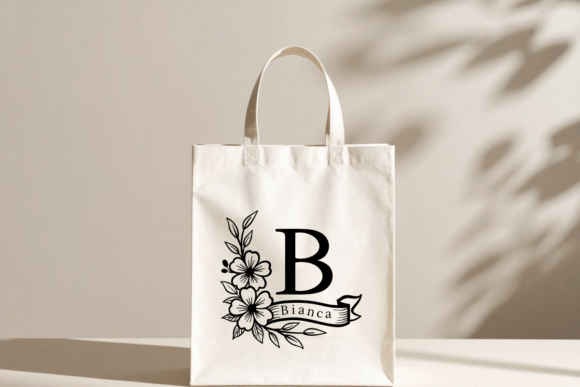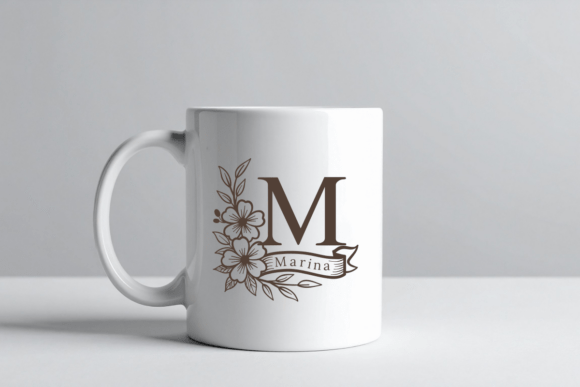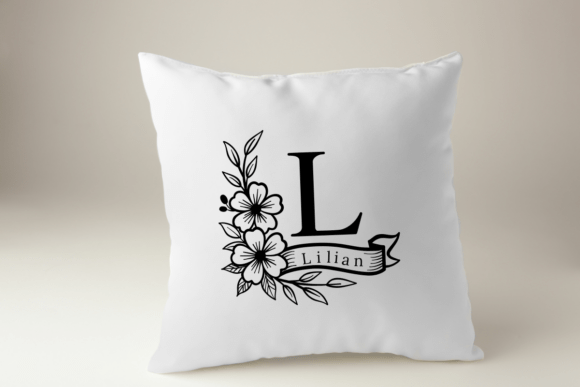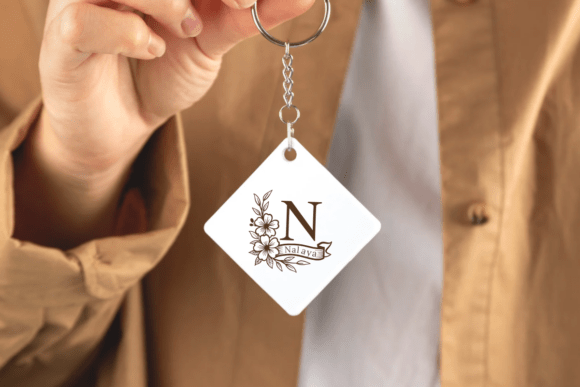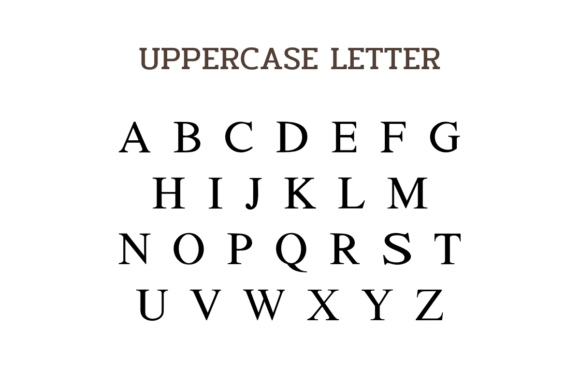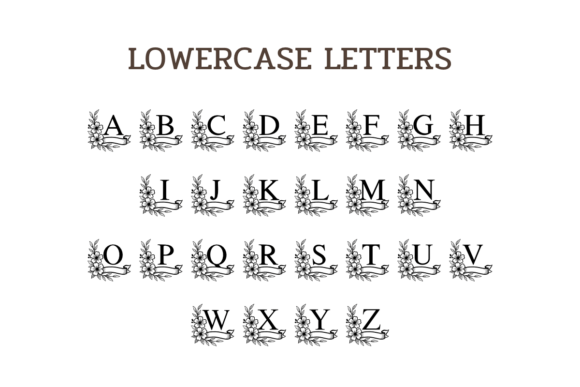
Elevate Your Designs with the Elegance of Floral Monogram Font
Are you a designer, crafter, or DIY enthusiast looking to add a touch of elegance and sophistication to your projects? Look no further than the beautiful Floral Monogram Font. This decorative font is perfect for taking your designs to the next level, whether you’re creating notes, diaries, greeting cards, or a wide range of other projects.
What is Floral Monogram Font?
Floral Monogram Font is a stunning decorative font that features intricate floral designs and monogrammed letters. Its unique and eye-catching style makes it perfect for a variety of creative projects, from traditional paper crafting to digital designs.
Uses for Floral Monogram Font
One of the best things about Floral Monogram Font is its versatility. You can use it for:
- Taking notes: Add a touch of elegance to your journaling or note-taking with this beautiful font.
- Writing a diary: Make your diary entries feel like a treasured keepsake with the Floral Monogram Font.
- Creating greeting cards: Impress your friends and loved ones with beautifully designed greeting cards featuring this stunning font.
- Designing banners: Use Floral Monogram Font to create eye-catching banners for parties, events, or promotions.
- Content creation: Add a touch of sophistication to your blog posts, social media updates, or marketing materials.
- Mugs and ceramics: Create beautiful, one-of-a-kind designs for mugs, plates, and other ceramics.
- Cards and invitations: Make your cards and invitations stand out with this gorgeous font.
- Shirts and apparel: Design unique and stylish apparel featuring Floral Monogram Font.
- Stationery: Create custom stationery, including letterheads, envelopes, and notecards.
- Social media posts: Elevate your social media presence with beautifully designed posts featuring this elegant font.
Why Choose Floral Monogram Font?
So why choose Floral Monogram Font for your projects? Here are just a few reasons:
- Elegant and sophisticated: This font exudes elegance and sophistication, making it perfect for special occasions or everyday designs.
- Versatile: Use Floral Monogram Font for a wide range of projects, from paper crafting to digital designs.
- Easy to use: This font is easy to read and work with, making it perfect for designers and crafters of all skill levels.
- Unique: Floral Monogram Font is a one-of-a-kind font that will help your designs stand out from the crowd.
Tips for Using Floral Monogram Font
Here are a few tips for getting the most out of Floral Monogram Font:
- Experiment with colors: Try pairing Floral Monogram Font with different colors and backgrounds to create unique and eye-catching designs.
- Mix and match: Combine Floral Monogram Font with other fonts and graphics to create interesting and dynamic designs.
- Pay attention to scale: Make sure to adjust the size of your text to fit your design, ensuring that your Floral Monogram Font is legible and visually appealing.
Floral Monogram Font is a beautiful and versatile decorative font that’s perfect for designers, crafters, and DIY enthusiasts. With its elegant and sophisticated style, this font can be used for a wide range of projects, from traditional paper crafting to digital designs. Whether you’re looking to create stunning greeting cards, unique apparel, or eye-catching social media posts, Floral Monogram Font is the perfect choice. So why wait? Download Floral Monogram Font today and start elevating your designs to the next level!